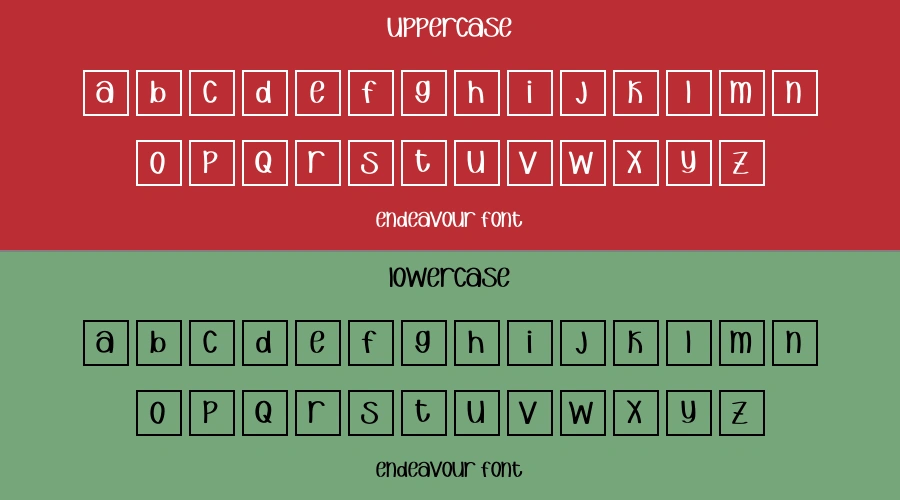
About Endeavour Font
Designed with precision, Endeavour Font merges dramatic weight with adaptability in every character. This versatility makes it particularly effective for logo design, where memorability and creative potential directly impact communication quality. Each letterform demonstrates meticulous craftsmanship.
Technical excellence shines through elements like consistent strokes and dingbat elements, enhancing typographic versatility. In editorial spreads settings, Endeavour Font proves its worth through superior personality transfer. The thoughtful execution of proportion and scientific authority ensures professional results.
Endeavour Font |